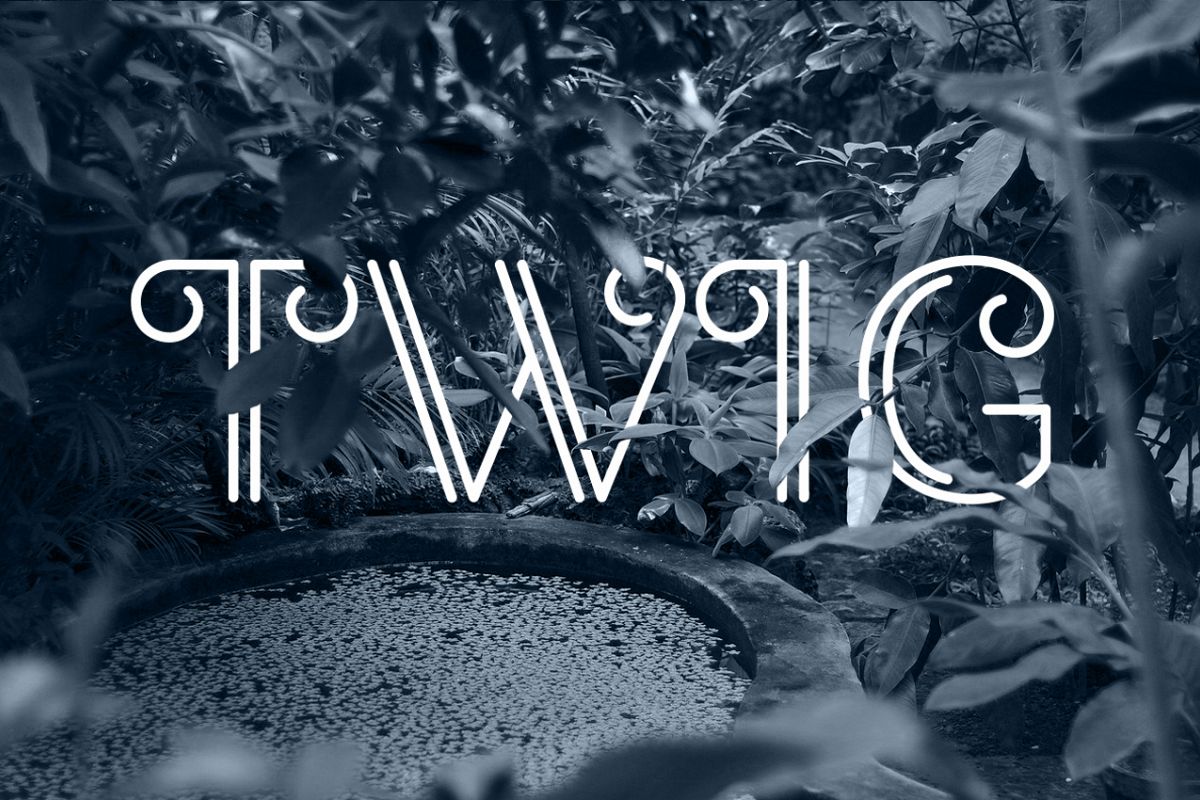
TWIG
Twig
Hi, I want to present my new font a Twig.
It is a decorative font that looks good in large size and small headers.
Font contains Latin characters.